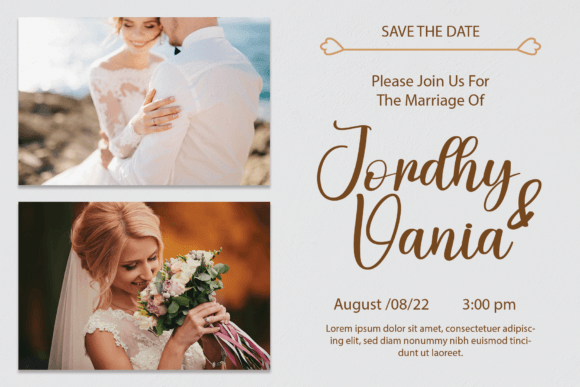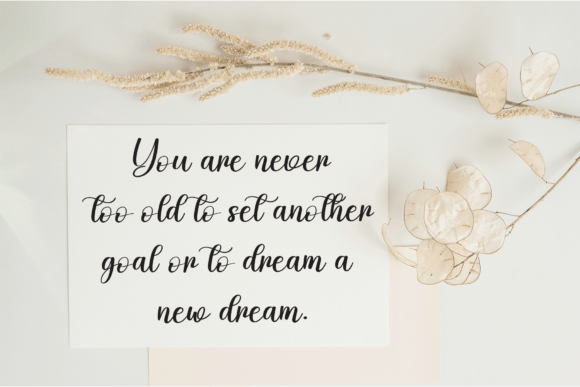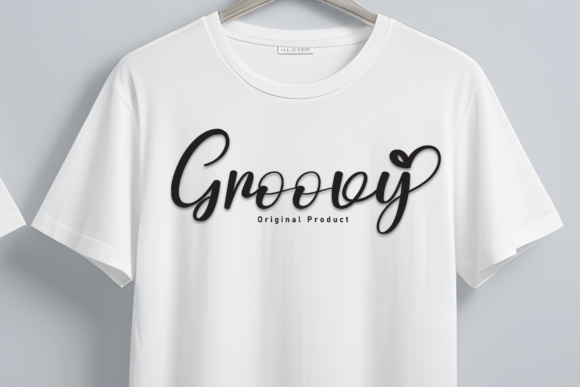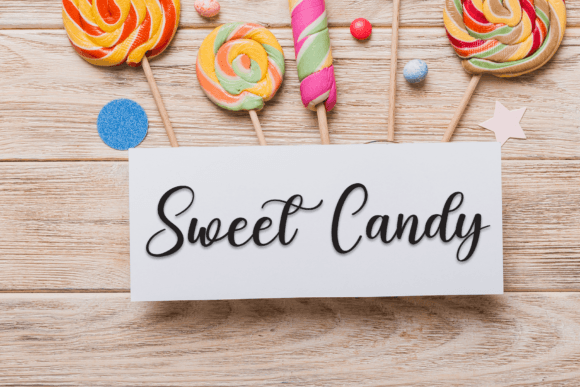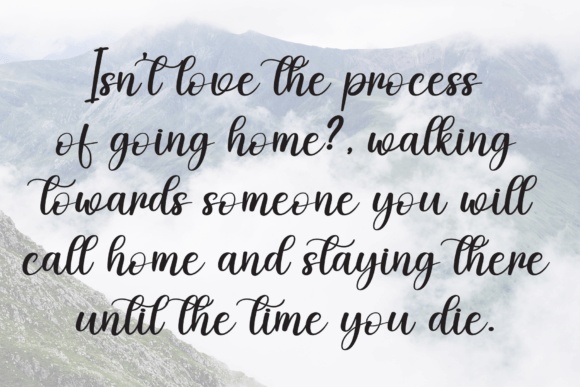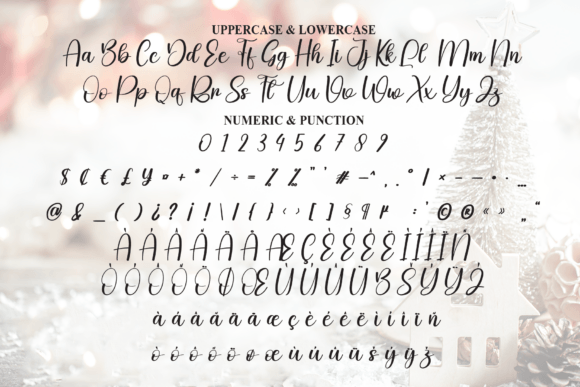
Introducing Chilly Christmas Font: The Ultimate Holiday Display Font
Are you looking for a font that embodies the spirit of Christmas? A font that is sweet, friendly, and playful, yet elegant and sophisticated? Look no further than Chilly Christmas Font, the perfect addition to your typography collection. In this article, we’ll dive into the world of Chilly Christmas Font, exploring its features, benefits, and uses, and why it’s a must-have for designers and crafters alike.
The Charm of Chilly Christmas Font
Chilly Christmas Font is a handwritten display font that exudes a sense of whimsy and fun. Its delicate, cursive strokes and playful letterforms evoke a sense of joy and festivity, making it the perfect choice for holiday-themed designs. Whether you’re creating Christmas cards, invitations, or social media graphics, this font is sure to add a touch of magic to your projects.
Key Features of Chilly Christmas Font
- Sweet and Friendly Design: Chilly Christmas Font boasts a sweet and friendly design that’s perfect for creating heartwarming holiday content.
- Handwritten Display Font: This font features delicate, cursive strokes and playful letterforms that add a touch of elegance to your designs.
- Highly Versatile: Use Chilly Christmas Font for a wide range of design projects, from wedding invitations and birthday cards to social media graphics and holiday-themed merchandise.
Benefits of Using Chilly Christmas Font
So why choose Chilly Christmas Font for your design projects? Here are just a few benefits of using this amazing font:
- Adds a Touch of Whimsy: Chilly Christmas Font adds a playful, whimsical touch to your designs, making them stand out from the crowd.
- Evokes Emotion: The sweet and friendly design of this font is sure to evoke emotions and create a connection with your audience.
- Perfect for Holiday-Themed Designs: This font is specifically designed for holiday-themed designs, making it the perfect choice for Christmas, Hanukkah, or New Year’s Eve projects.
Uses for Chilly Christmas Font
Chilly Christmas Font is a versatile font that can be used for a wide range of design projects. Here are a few ideas to get you started:
- Christmas Cards and Invitations: Use Chilly Christmas Font to create heartwarming Christmas cards and invitations that are sure to delight your loved ones.
- Wedding Invitations and Stationery: This font is also perfect for wedding invitations, stationery, and other wedding-related designs.
- Social Media Graphics: Add a touch of whimsy to your social media graphics with Chilly Christmas Font.
- Holiday-Themed Merchandise: Use this font to create holiday-themed merchandise, such as t-shirts, mugs, and gift tags.
Tips for Using Chilly Christmas Font
Here are a few tips for getting the most out of Chilly Christmas Font:
- Experiment with Font Sizes and Colors: Play around with different font sizes and colors to create a unique look that suits your design.
- Pair with Other Fonts: Chilly Christmas Font pairs well with other fonts, so don’t be afraid to experiment with different font combinations.
- Use for Headlines and Titles: This font is perfect for headlines and titles, adding a touch of whimsy and fun to your designs.
In conclusion, Chilly Christmas Font is a must-have for designers and crafters looking to add a touch of whimsy and fun to their holiday-themed designs. With its sweet and friendly design, highly versatile features, and compatibility with multiple design software, this font is sure to become a favorite in your typography collection. So why wait? Download Chilly Christmas Font today and start creating magical holiday designs that will delight your audience!